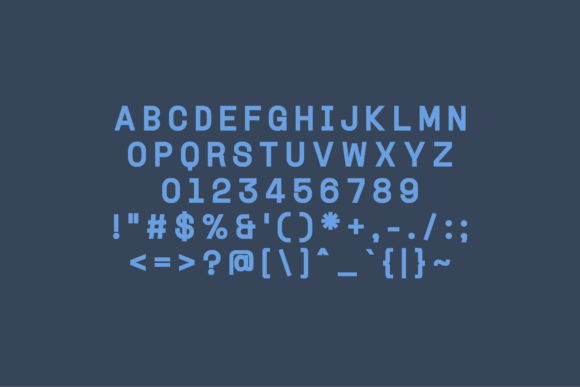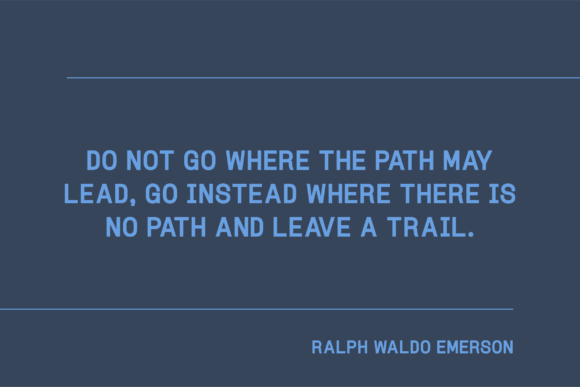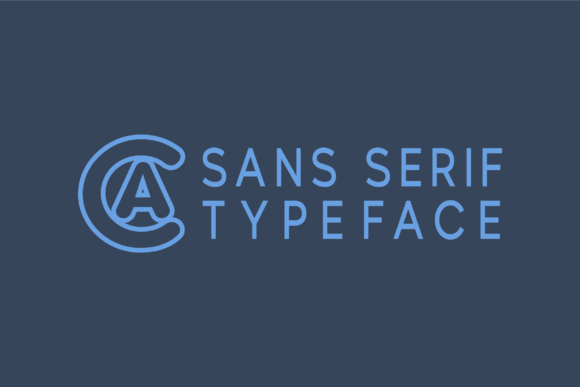
Introduction to Perfect Coconut Font
As designers, we’ve all been there – staring at a blank canvas, struggling to find the perfect font to bring our creative project to life. The blank space stares back, taunting us with its emptiness. But what if I told you that there’s a font that could change all that? A font so versatile, so elegant, and so perfect for any design need that you’ll wonder how you ever managed without it. Welcome to the world of Perfect Coconut Font.
This modern, classy sans serif typeface is more than just a pretty face – it’s a high-quality design resource that’s waiting to elevate your next creative project. With its transparent background and crisp, clean lines, Perfect Coconut Font is the perfect choice for logos, weddings, invitations, quotes, advertisements, print, magazines, and more. And the best part? You can download it for free, making it an invaluable addition to any designer’s toolkit.
Key Features of Perfect Coconut Font
- High-quality design resource for creative projects, ideal for logos, branding, and graphics.
- Features a transparent background, allowing for easy layering and customization.
- Available in a range of sizes, from 12pt to 72pt, making it suitable for various design applications.
- Designed with a high resolution (300 DPI) for crisp and clear display, ideal for print and digital projects.
- Unique characteristics include a tropical feel, perfect for projects related to beach, summer, or island themes.
Honest Review: Perfect Coconut Font
I recently had the chance to work with the Perfect Coconut Font, and I must say it’s been a great addition to my design resources. This free download has really elevated my creative projects.
- ✨ High-quality design: The Perfect Coconut Font is beautifully crafted, with intricate details that make it perfect for various design applications.
- ✨ Transparent background: This feature allows for seamless integration with other design elements, giving you more flexibility in your creative project.
- ✨ Versatility: The Perfect Coconut Font is suitable for both print and digital designs, making it an excellent choice for designers working on a wide range of projects.
While the Perfect Coconut Font is an excellent resource, there are a few limitations to be aware of:
- ⚠️ Limited font sizes: Some users may find the font size options to be somewhat limited, which can be a drawback in certain design situations.
- ⚠️ Not ideal for body text: Due to its intricate design, the Perfect Coconut Font may not be the best choice for large blocks of body text.
Overall, I’m really impressed with the Perfect Coconut Font. Its high quality and versatility make it an excellent addition to any designer’s resource library. Just be aware of the limitations mentioned above, and you’ll be well on your way to creating stunning designs with this fantastic font.
How to Use Perfect Coconut Font
The Perfect Coconut Font is a unique and versatile design resource ideal for creative projects. Its high quality and transparent background make it perfect for a variety of applications.
Use the Perfect Coconut Font in combination with other design elements to create a unique and eye-catching look. Experiment with different font sizes, colors, and styles to find the perfect combination for your project.
The Perfect Coconut Font is ideal for a variety of creative projects, including graphic design, web design, and digital art. It’s also perfect for use in logos, branding materials, and marketing materials.